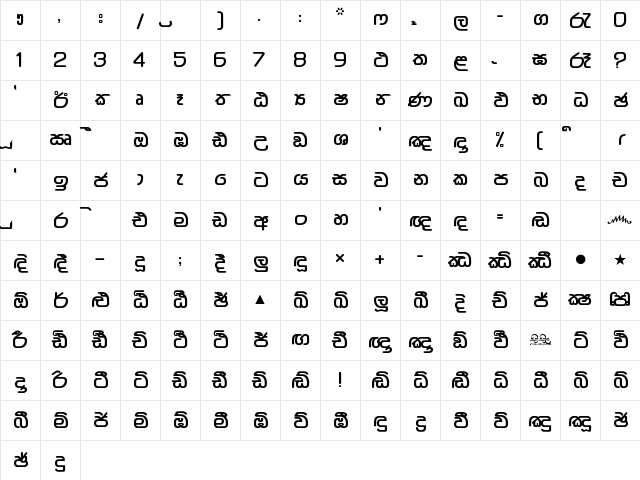
SINHA Sarasavi 2012 Regular
Design Context for SINHA Sarasavi 2012
SINHA Sarasavi 2012 is a composed and adaptable typeface that performs quietly and consistently across a wide range of design contexts.
Pro Tip: Use SINHA Sarasavi 2012 in both headline and body roles to test its range before committing to a single application.